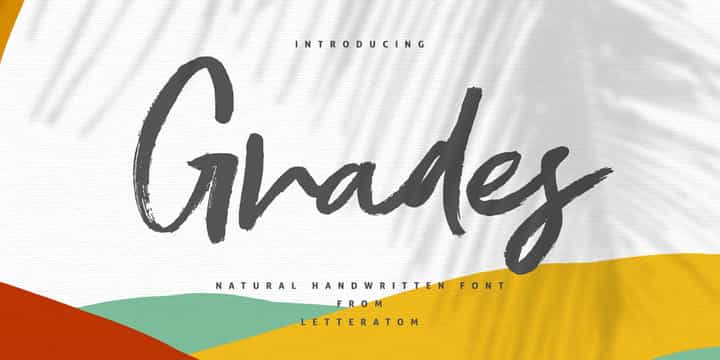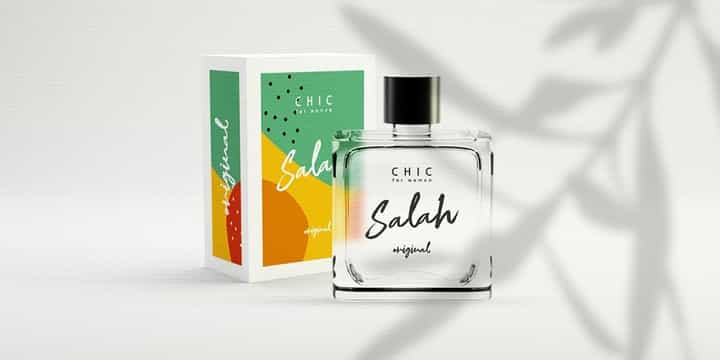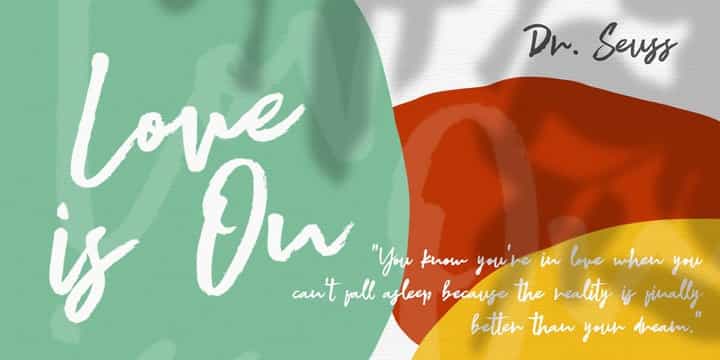
Discover Grades Font, part of the Brush collection—a versatile and unique font perfect for adding a personal touch to your projects. Download it for free and enjoy crafting designs with style, from invitations to social media posts. This font is available exclusively for personal use, giving you the freedom to create without limits. Unlock your creativity with Grades Font today!
Grades is a brush script font which has very natural handwritten look and feel to it. Ideal for the use in numerous design solutions that require some elements of thrill! Grades is a brush script font that looks very natural and has a hand written feel to it. Ideal for any type of design that requires energy and some sort of design excitement.